Frankenstein;
or, the Modern Prometheus
by Mary Wollstonecraft Shelley
designed by Rosie Wisniewski
I remember reading Frankenstein when I was in high school, and though it was over a decade ago, I vividly recall the terrifying cover design of that book. For this project, I took this opportunity to create a cover and interior that would have sparked my interest when I was a student and I hoped to create a design that was just as impactful.
My goal was to incorporate contemporary and traditional elements in my design. In the cover, I took inspiration from collages and the story of Victor piecing together his creation. This resulted in a more modern and abstract depiction of Frankenstein’s monster featured as the primary image. For the display type, I chose Scotch Display which is similar to the display typeface used on the pages of the original 1818 published sources.
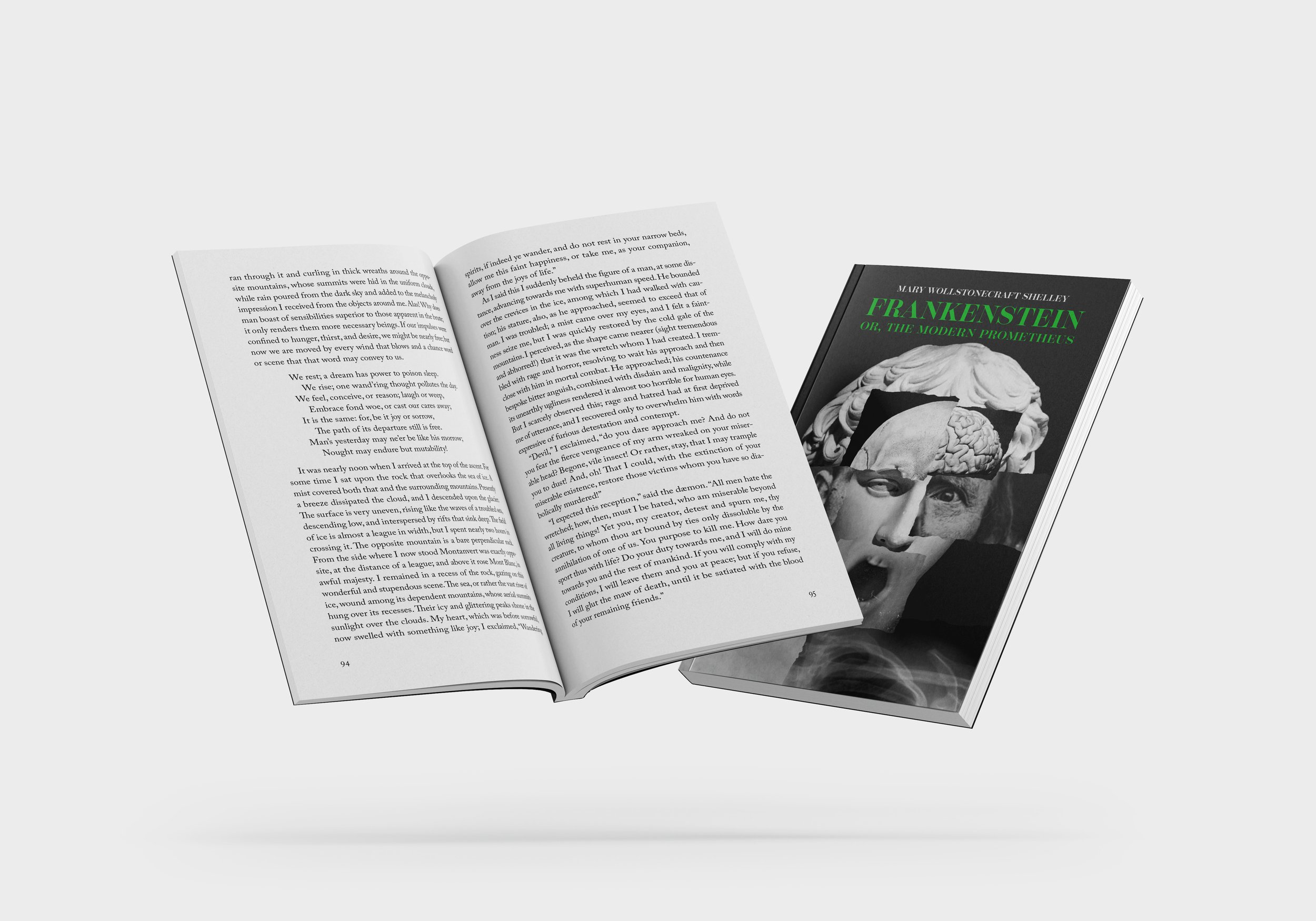
Text
11/15 Adobe Caslon Pro × 26p0
Specifications
French flaps, Spot gloss on the title and subtitle